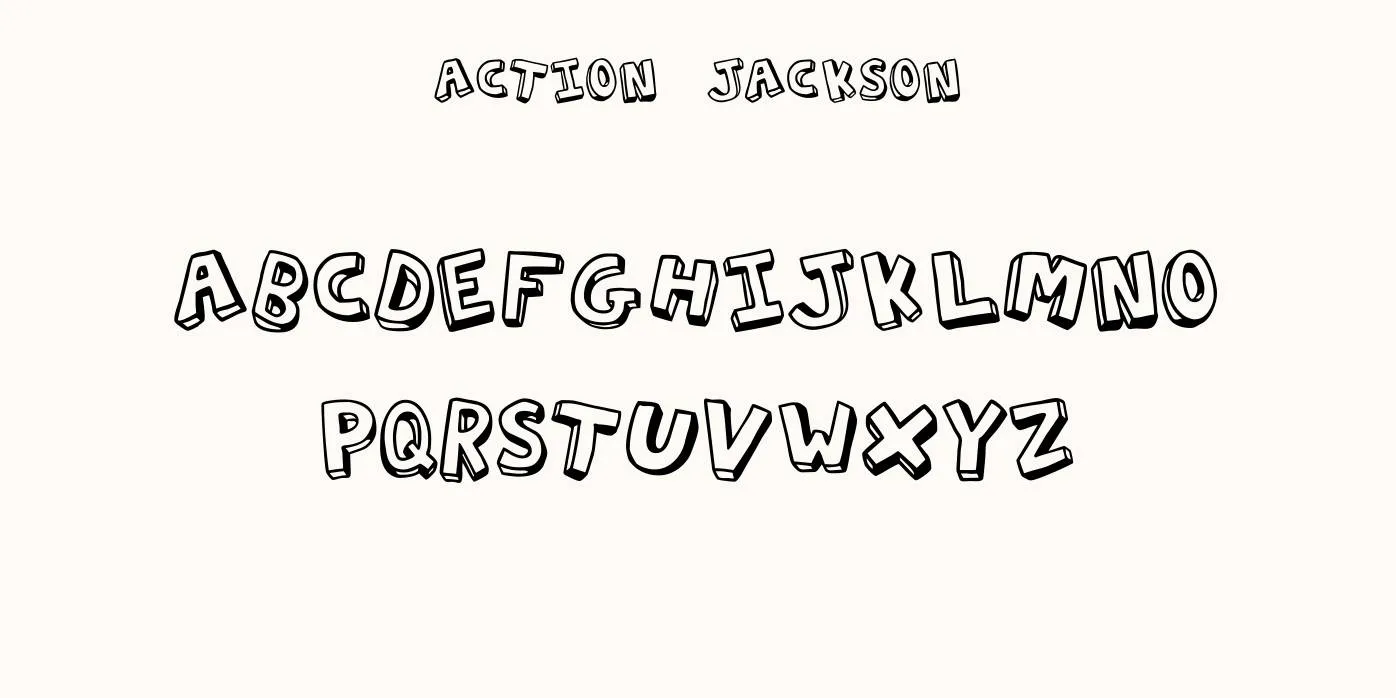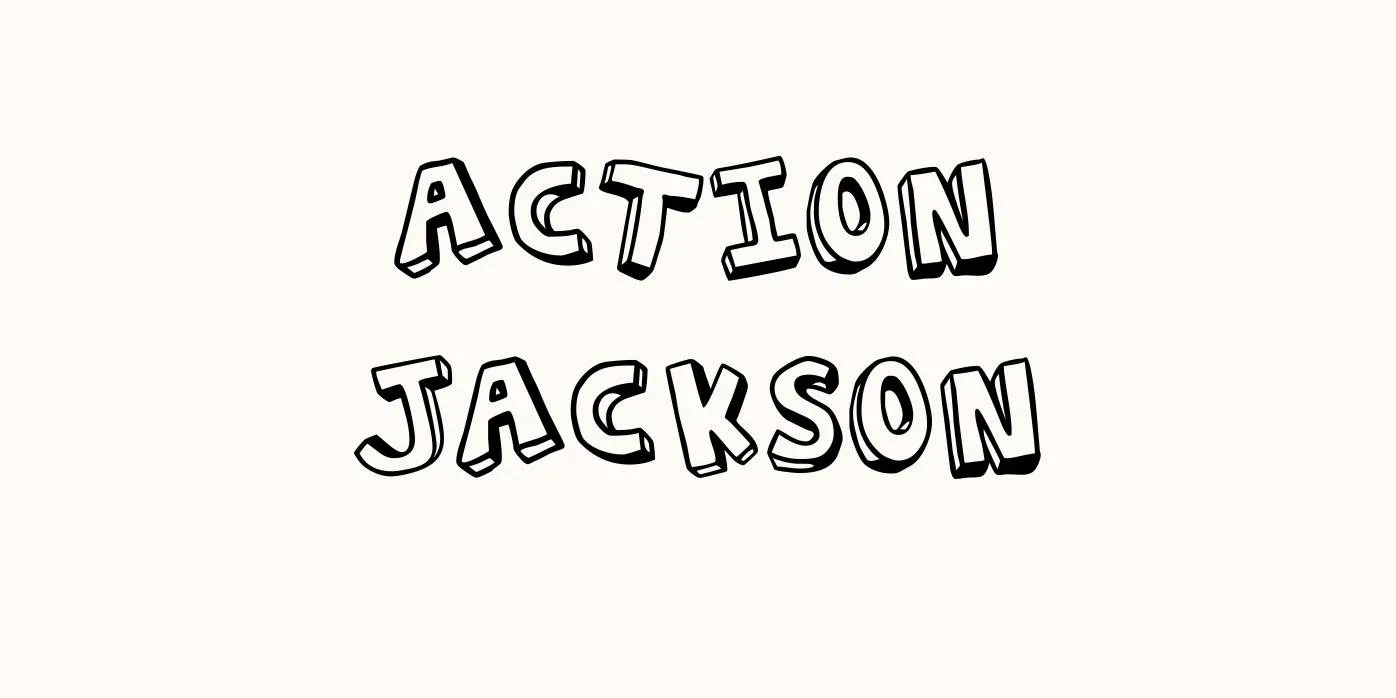
Action Jackson Font
Divide by Zero designed this typeface. Action Jackson Font is a cartoon-type texture. The characters of this font are hollow-bold, easily readable, playful, and attractive. The main reason to use this font is its uniqueness and texture.
On these bases, this texture gives a attractive look in text and similarities bring a pretty look.